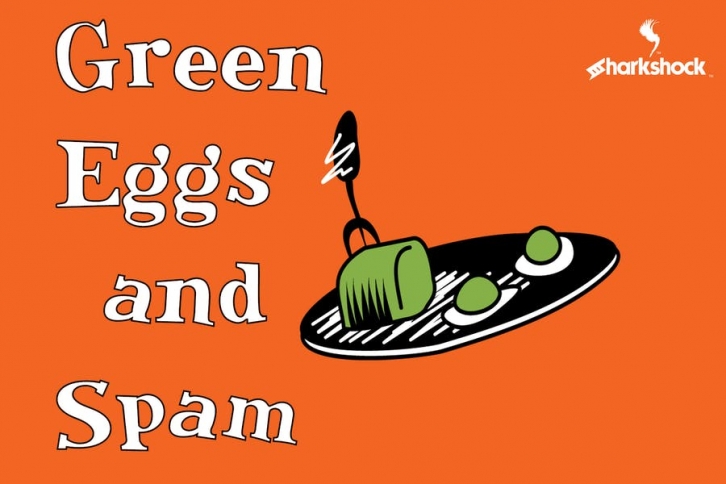
Green Eggs and Spam is a playful typeface that will take you back to your childhood before you can say "Sam I Am." This whimsical display font contains accents, European characters, outlined version, and kerning. Perfect for scrapbooking and children's books.